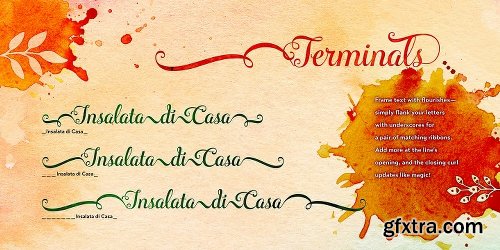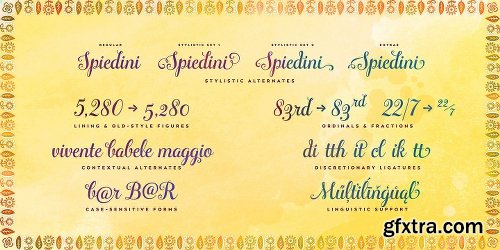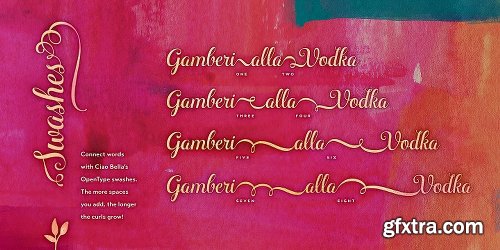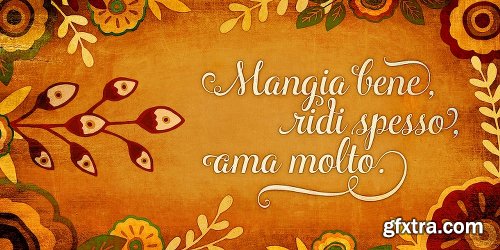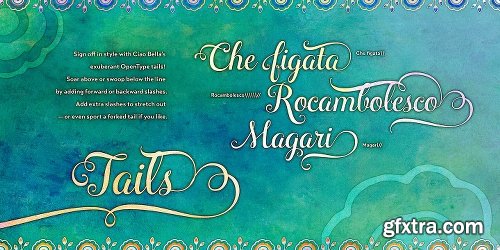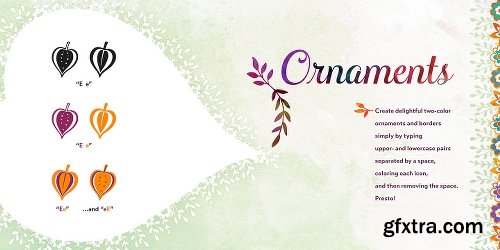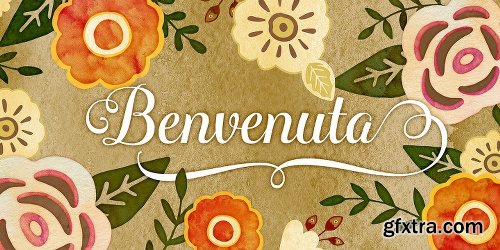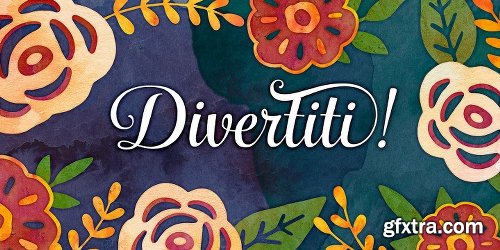
Charles Gibbons and Cindy Kinash’s Ciao Bella family pairs the funky elegance of a hand-drawn copperplate script with a bouquet of ornament fonts. Ciao Bella’s expansive range of alternate opening and closing forms, word-connecting ribbons, and swash characters use the power of OpenType to create a genuinely hand-lettered look. Bursting with over 2,000 characters, the Ciao script mates broad linguistic support with expressive possibilities galore in an easy-to-use software experience.
But then there are the ornaments! What’s truly innovative about Ciao Bella’s ornaments is that most of the characters come in pairs that can be set in multiple colors without any stacking, layering, or aligning. They work in any application that supports kerning — even most word processors. See the slideshow and Gallery link above to see how they work.
Ciao Bella marries the best of the old world — the warm, classic feel of ink on paper — and the new — the amazing capabilities of “smart” OpenType fonts — in a union that’s sure to delight.